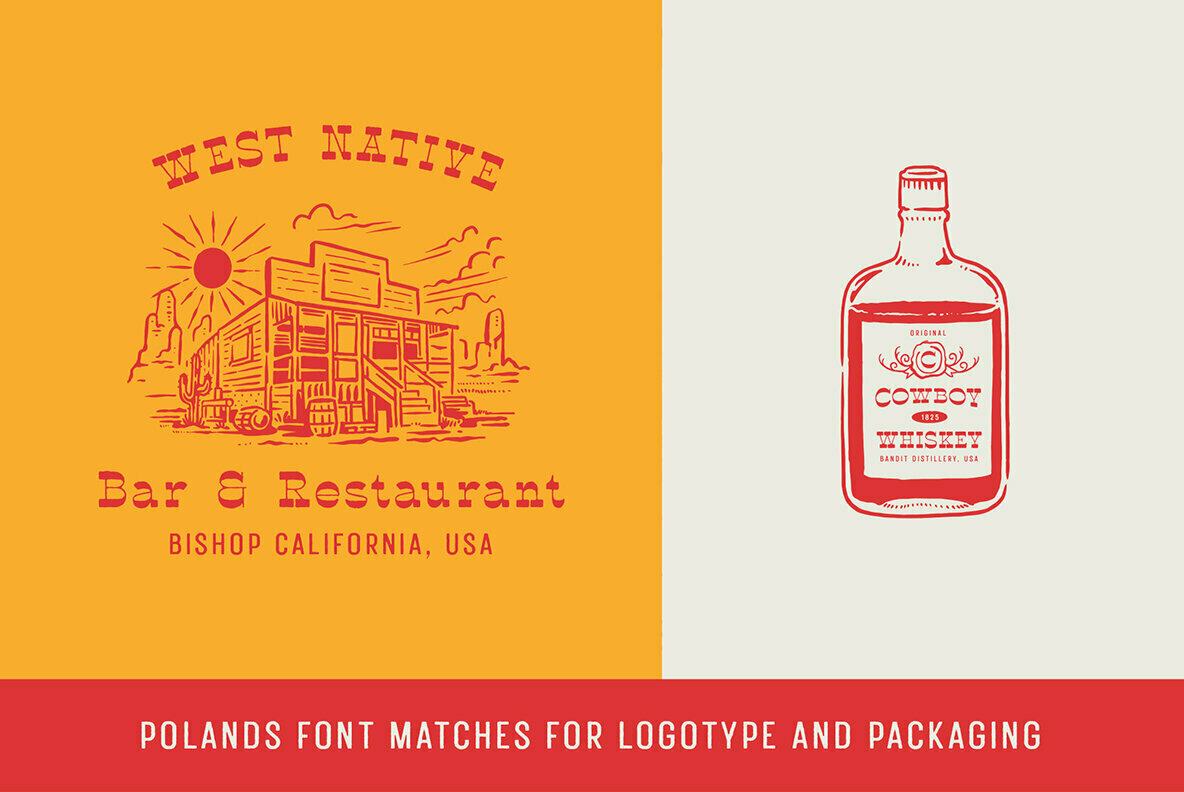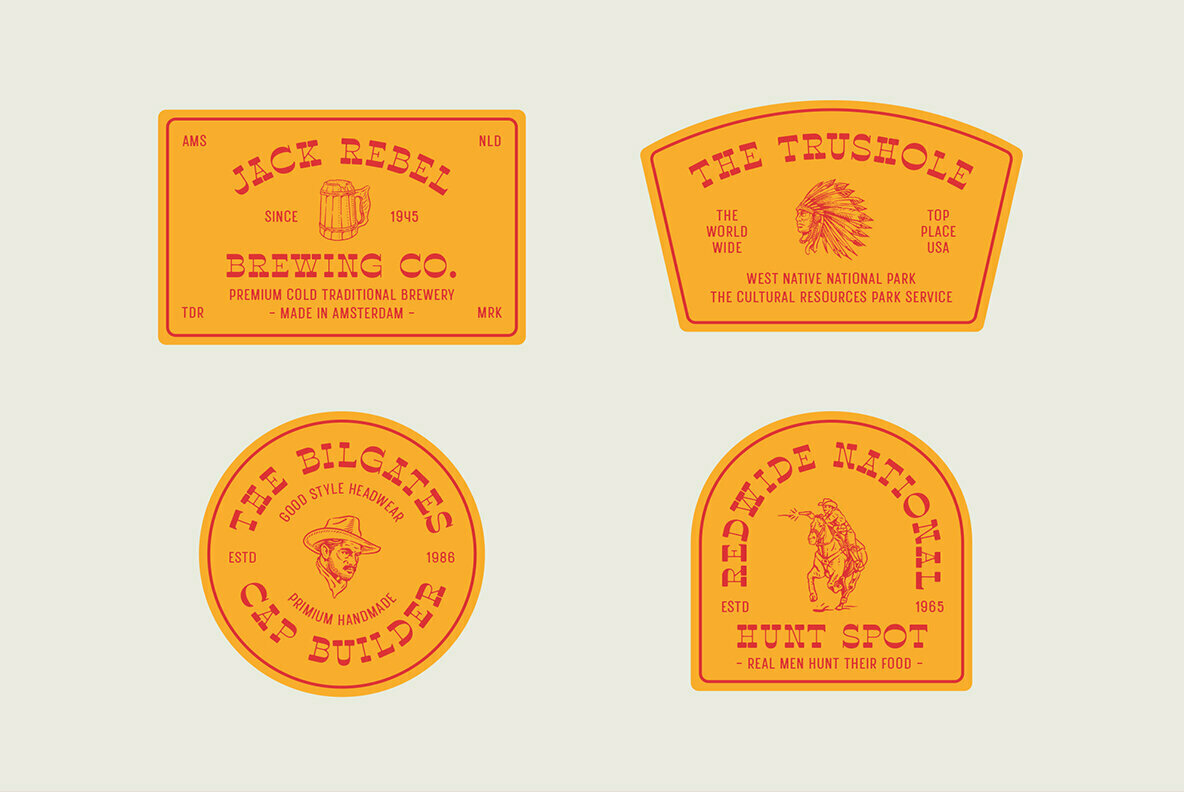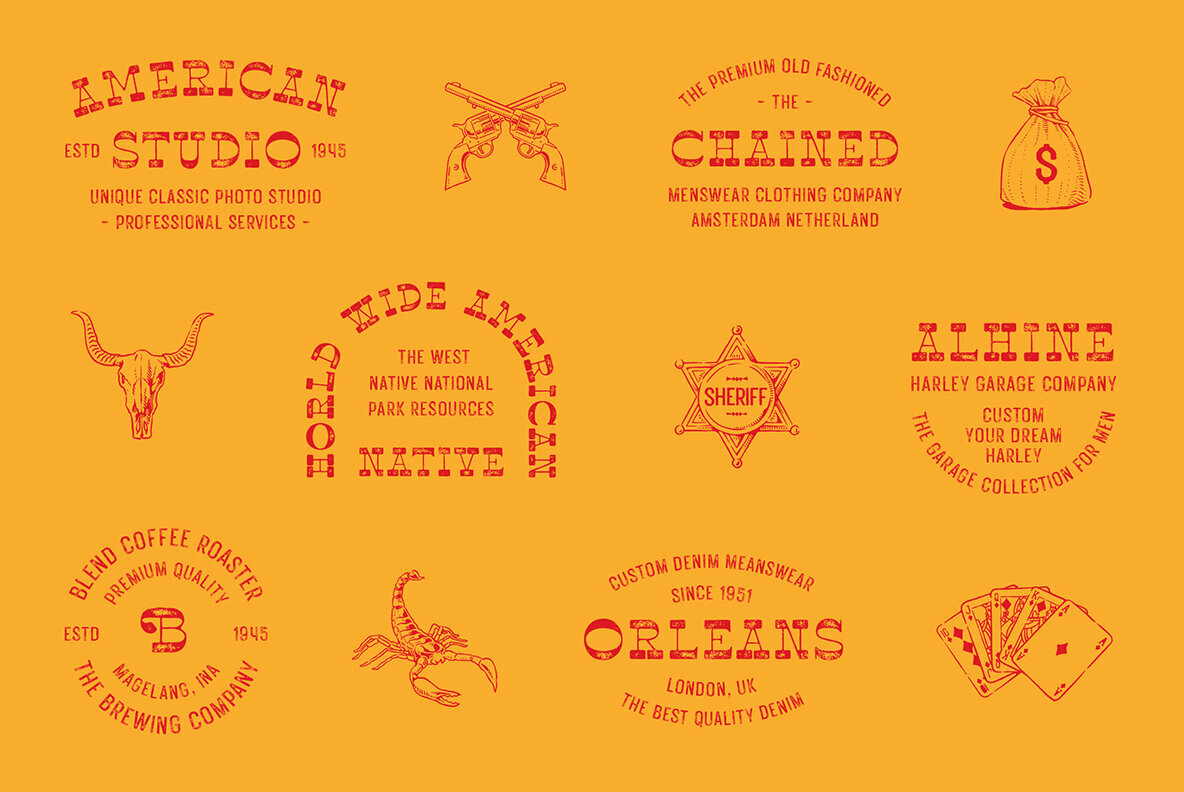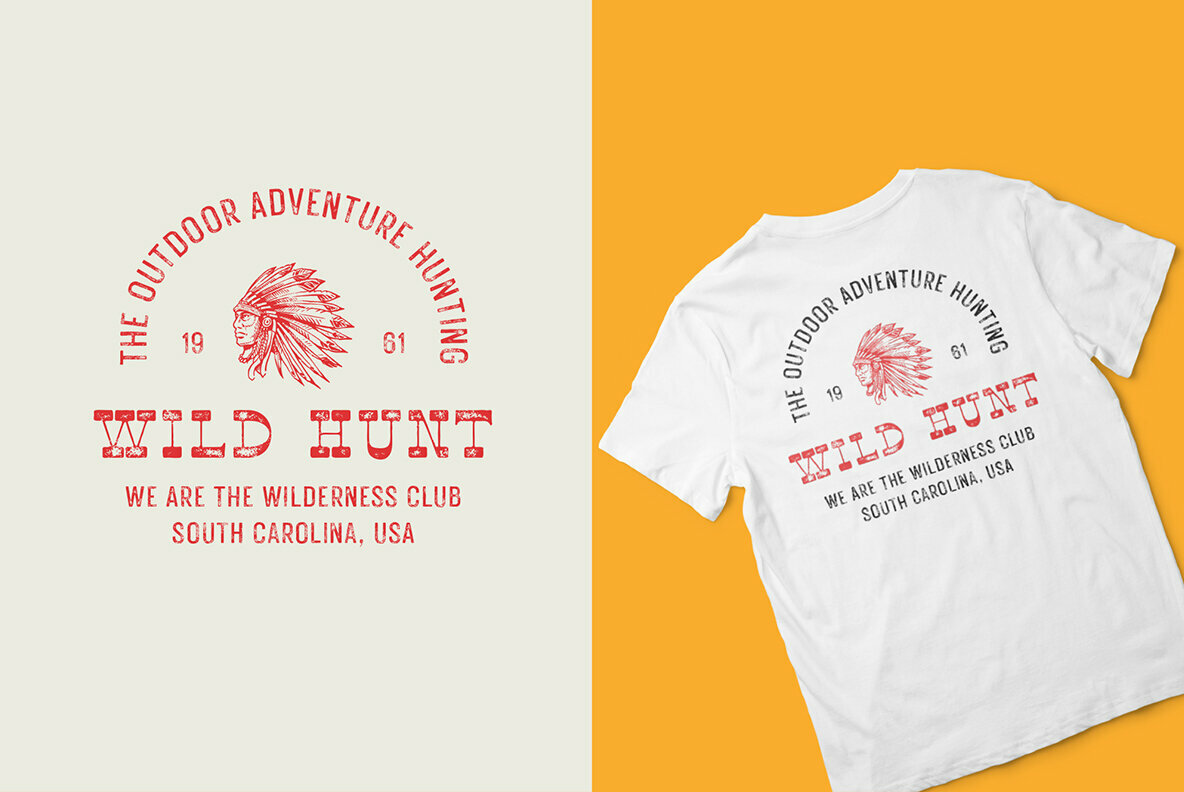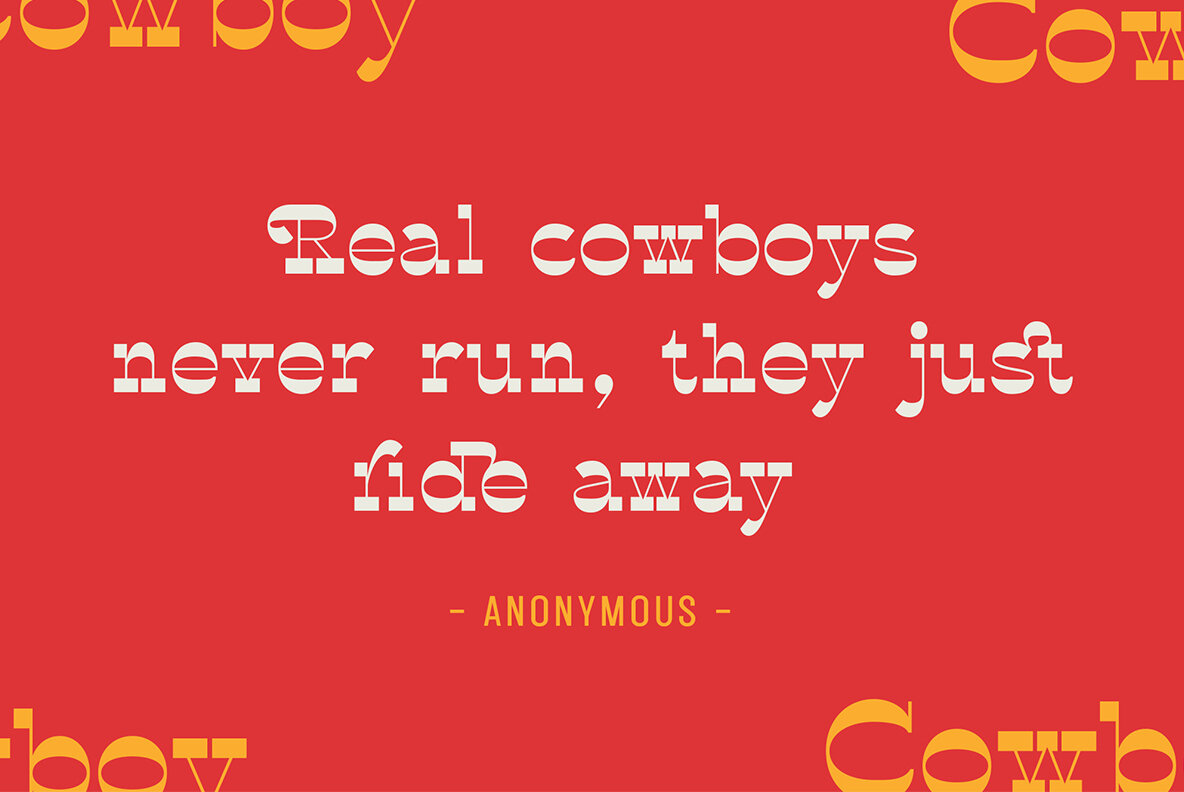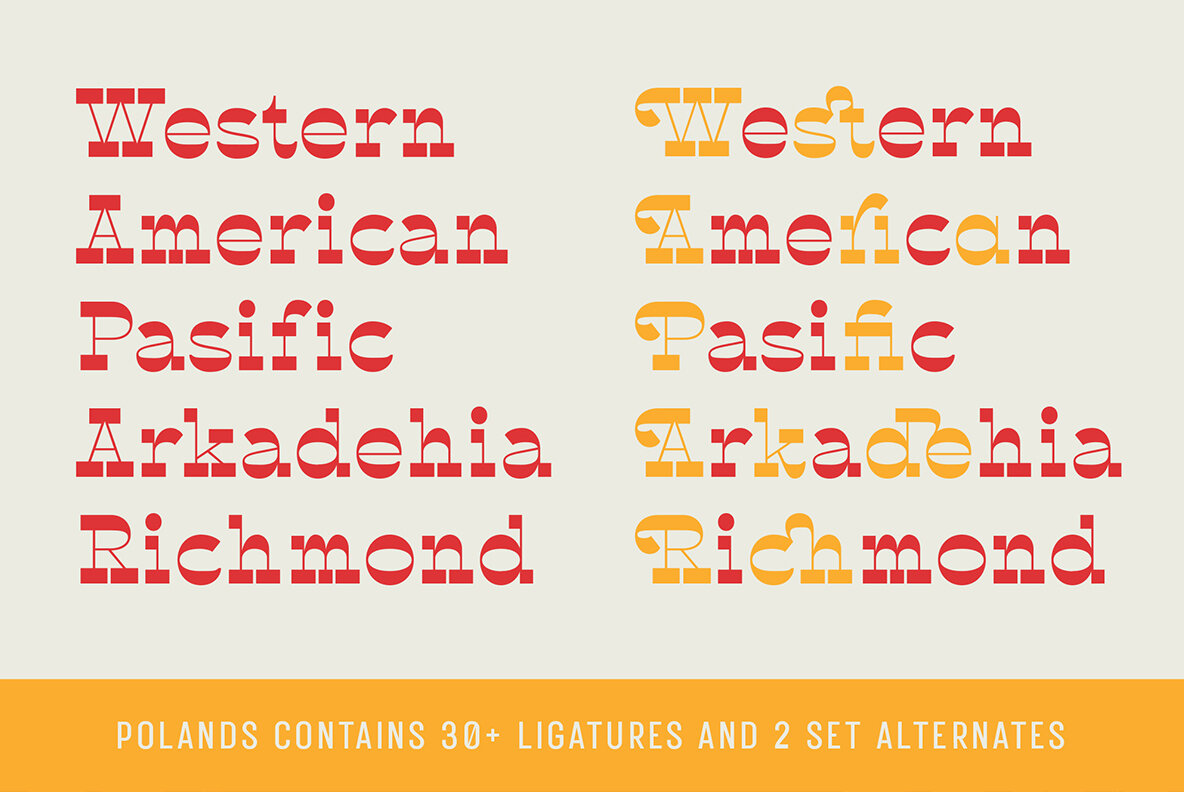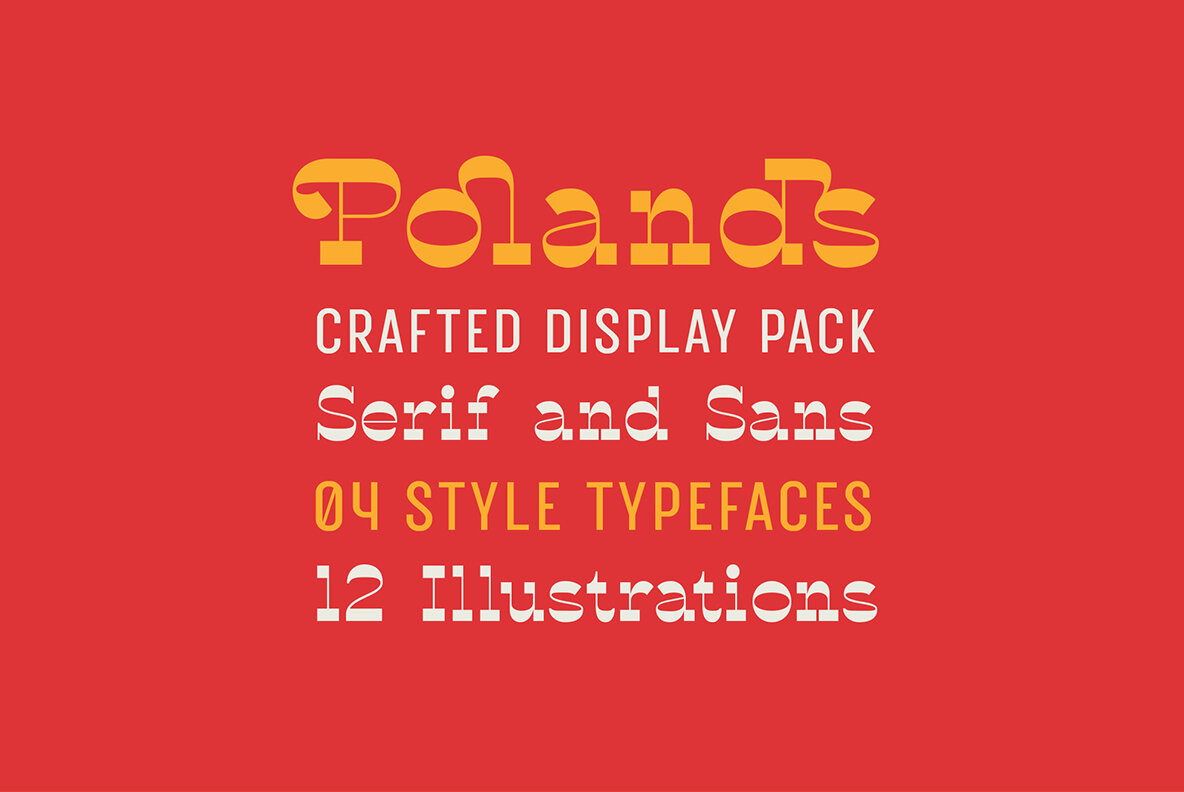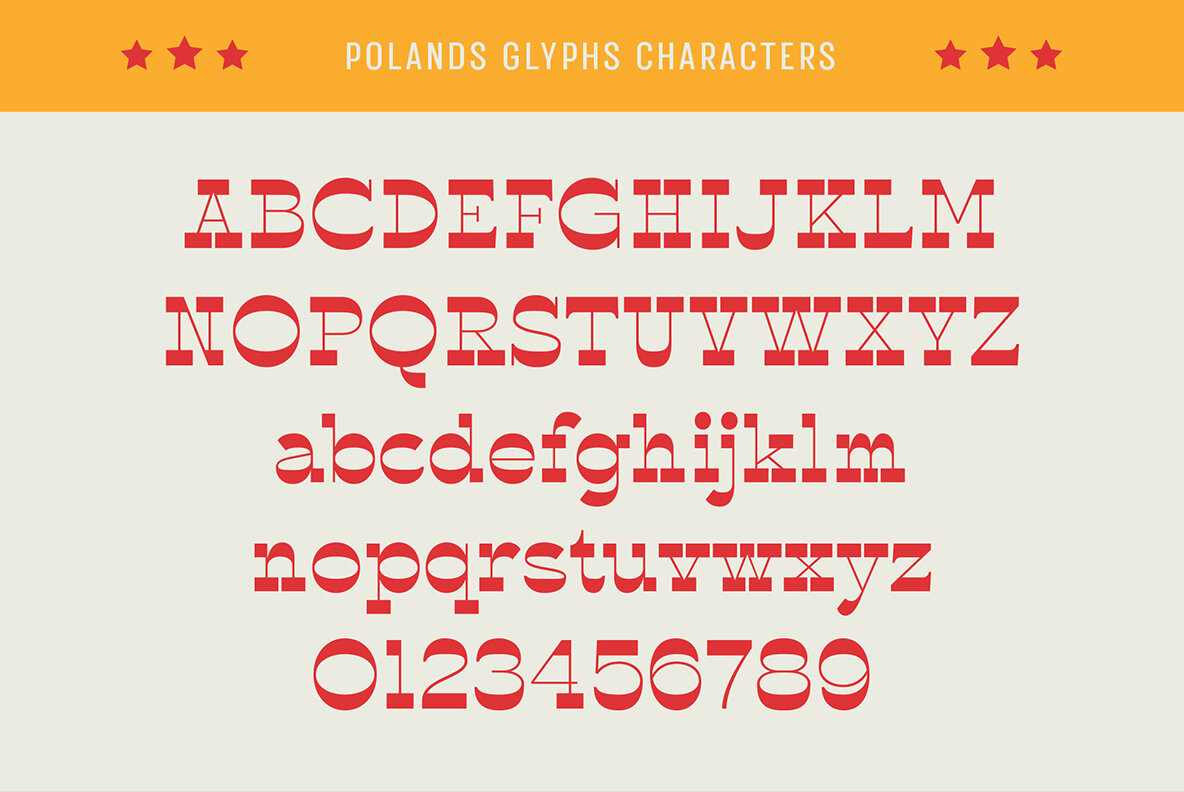
Polands Font
Polands Regular
Polands Rough
Polands Rounded
Polands Textured
Polands Caps Regular
Polands Caps Rough
Polands Caps Rounded
Polands Caps Textured
Polands Dingbat
Introducing Polands, a distinct reverse contrast display font collection that elegantly blends both serif and sans serif styles. Designed for versatility, each typeface in this collection comes in four distinctive styles: regular, rounded, rough, and textured. Polands offers an expressive aesthetic ideal for logos, posters, labels, badges, packaging, t-shirts, branding, and custom designs. Polands stands out as a sophisticated choice for creative professionals seeking a versatile and robust typeface for diverse applications.Polands: Reverse Contrast Display Font Collection